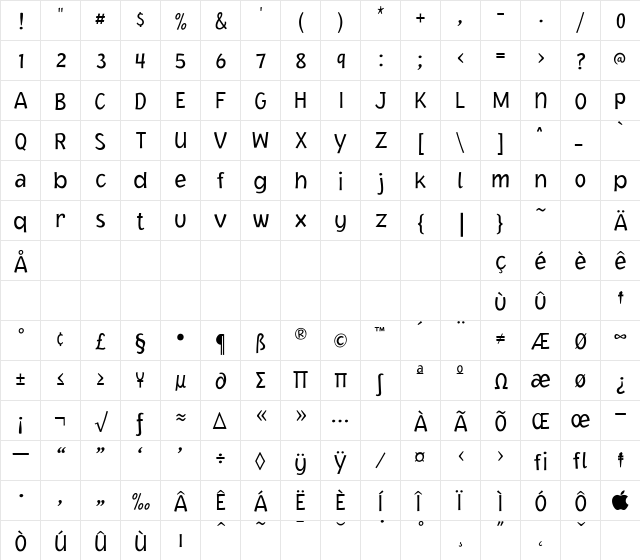
JacobyICG Regular
Design Context for JacobyICG Typeface
JacobyICG offers clean, dependable letterforms without strong stylistic allegiance, making it a practical choice for designers who need flexibility.